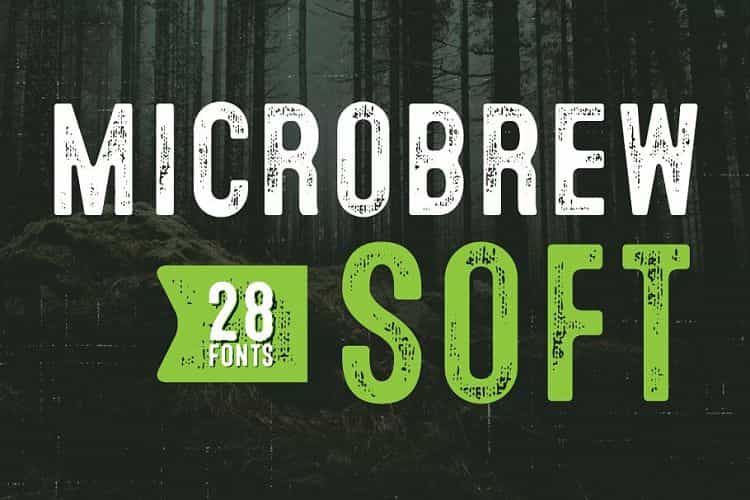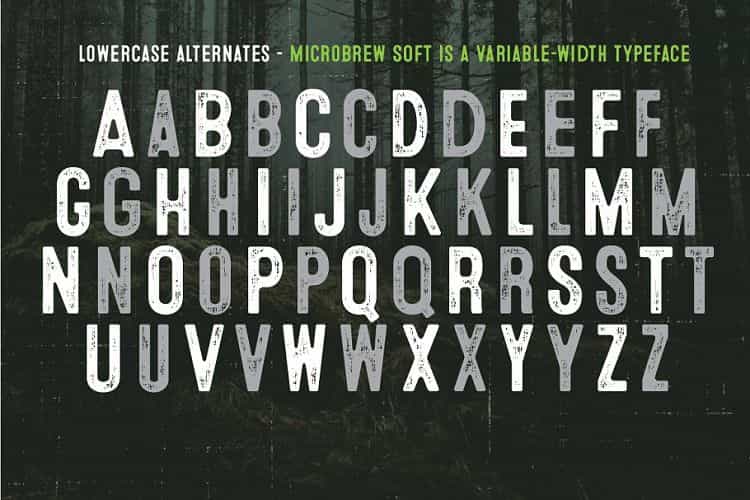
Microbrew Soft is the newest member of the Microbrew font family and it has a soft edge and a crisp corner, while still maintaining the retro and textured design. Form as neat or as dirty a look as you want! Comprising 27 different styles, words and ornaments, there are no limits to the number of faces you can use in your designs with font families.